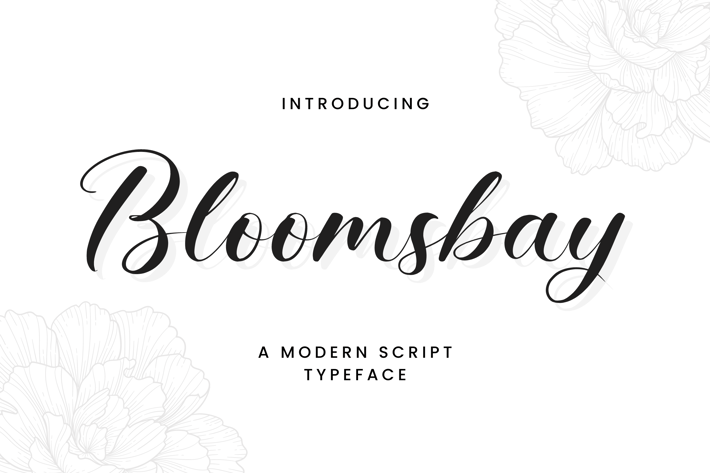
Bloomsbay - A Modern Script Typeface
Unveil the beauty of expressive writing with Bloomsbay, a modern script typeface that seamlessly blends contemporary flair with timeless sophistication. Each stroke of this meticulously crafted font reflects a harmonious balance of style and readability, making it an ideal choice for a myriad of creative projects.
Bloomsbay effortlessly transforms words into art, adding a touch of refined grace to your designs.
Whether you're crafting invitations, branding materials, or social media posts, Bloomsbay elevates your content with its versatile charm.
The script's fluid lines and tasteful curves create an engaging visual rhythm that captivates the reader. Embrace the modern script revolution and infuse your projects with the distinct allure of Bloomsbay.